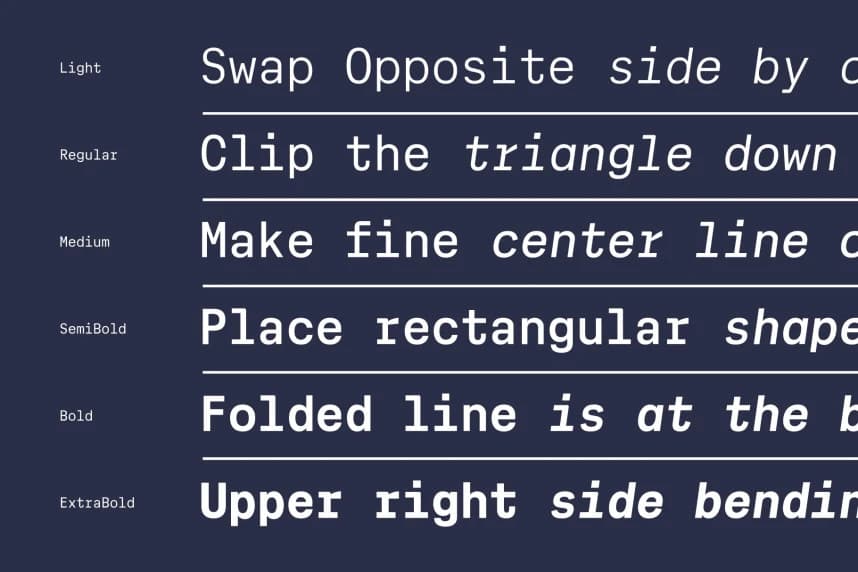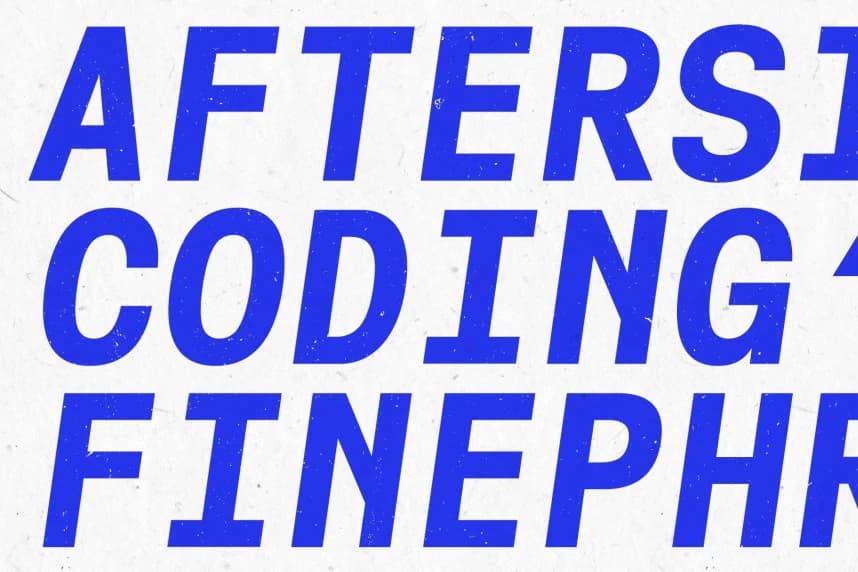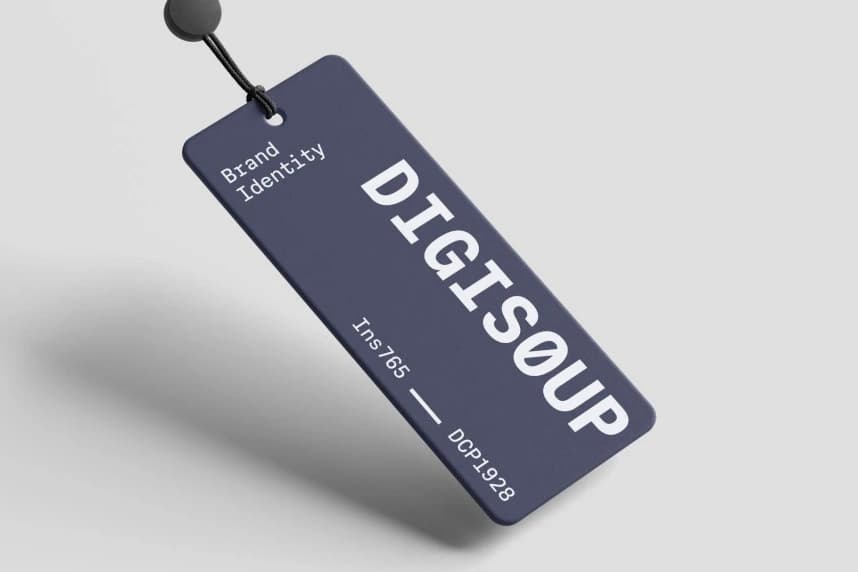
Cx Mono Font Family
Cx Mono Font Family is a modern sans-serif monospace typeface designed for clarity, balance, and contemporary aesthetics. Built with a clean modern grotesk sans serif structure, it delivers excellent readability across technical and visual contexts.